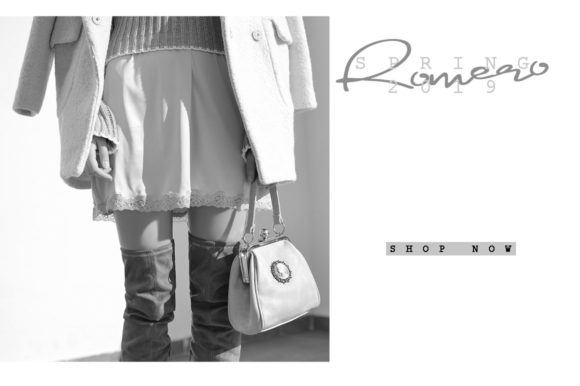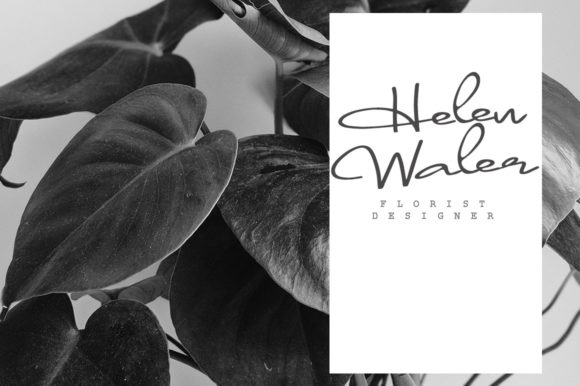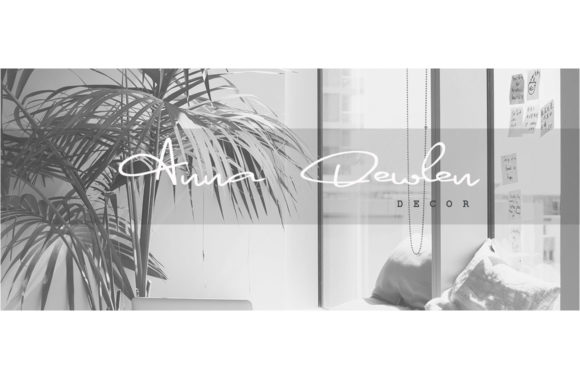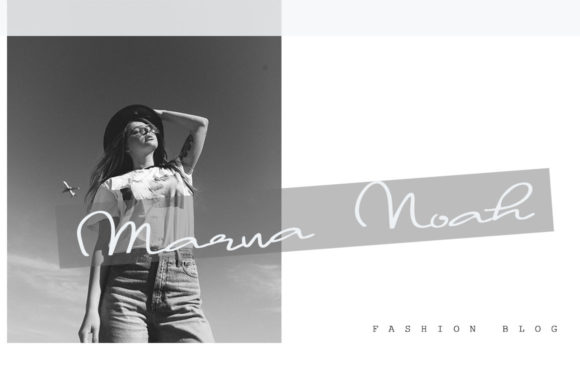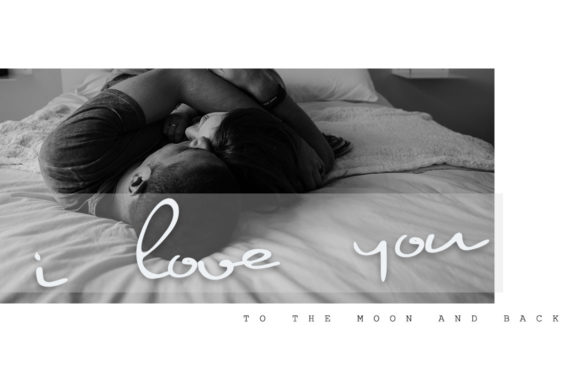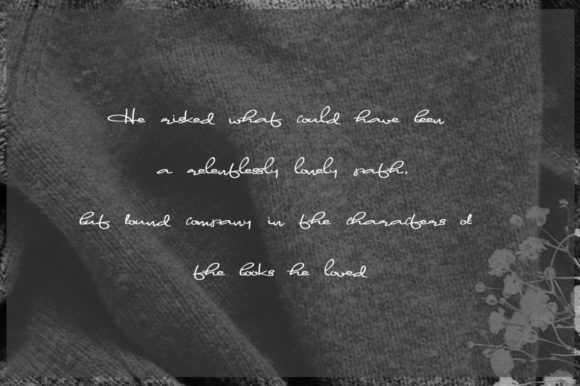
Introduction to Nolet Font
The Nolet is an attentively written script font.
It includes gentle curves and is perfect for adding an elegant touch to your lettering projects .
Nolet Font offers exceptional quality and versatility, making it a valuable addition to your design toolkit. Whether you’re creating for personal projects or commercial use, Nolet Font delivers professional results.